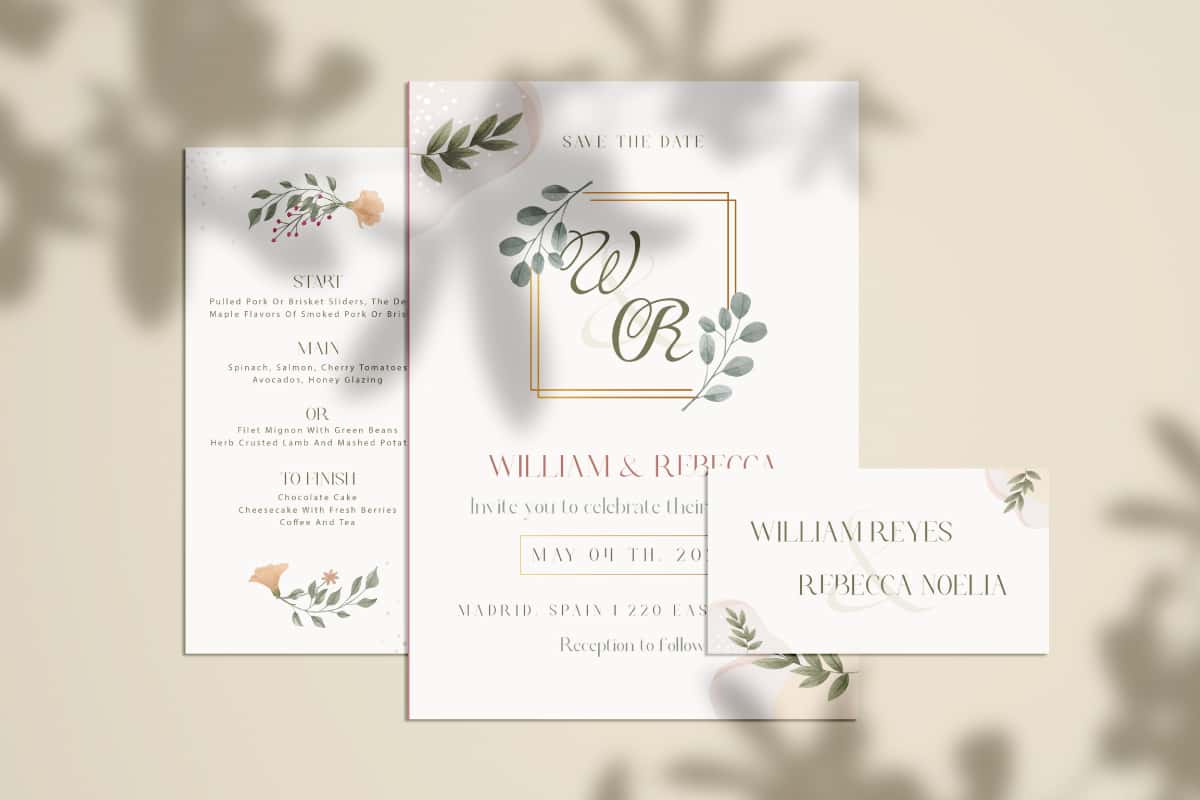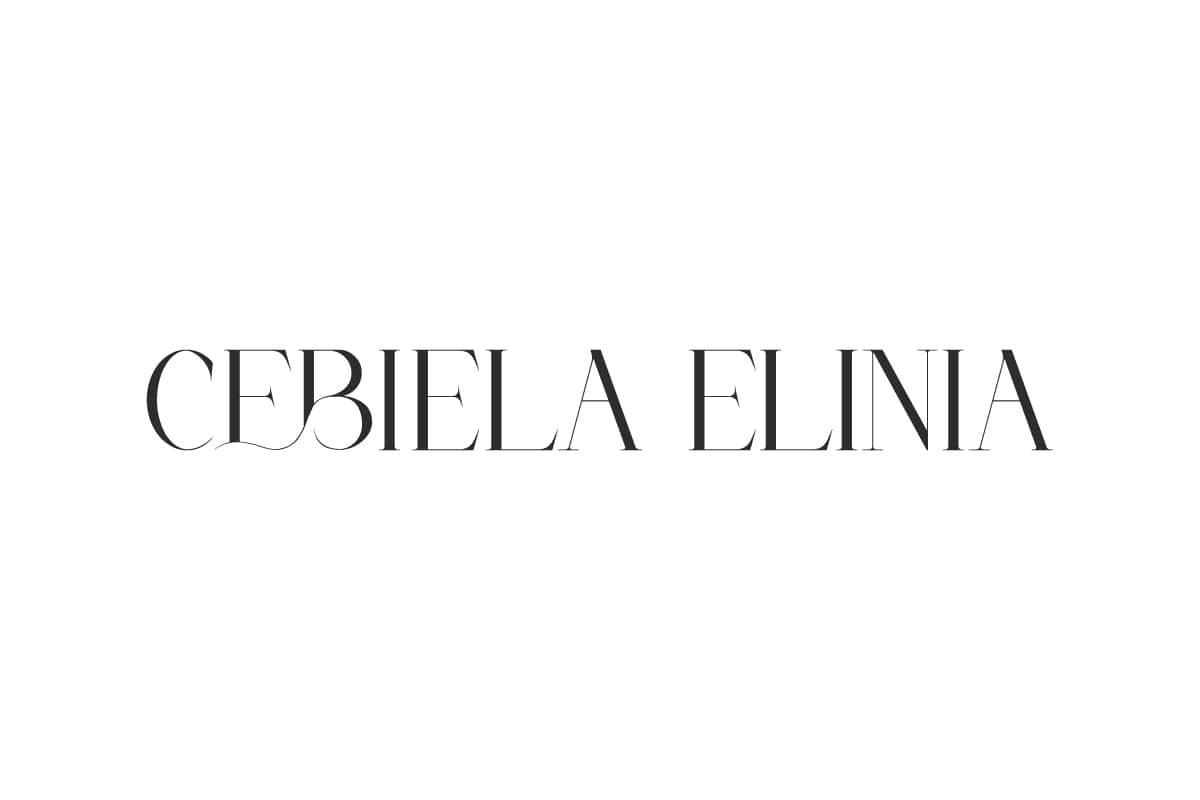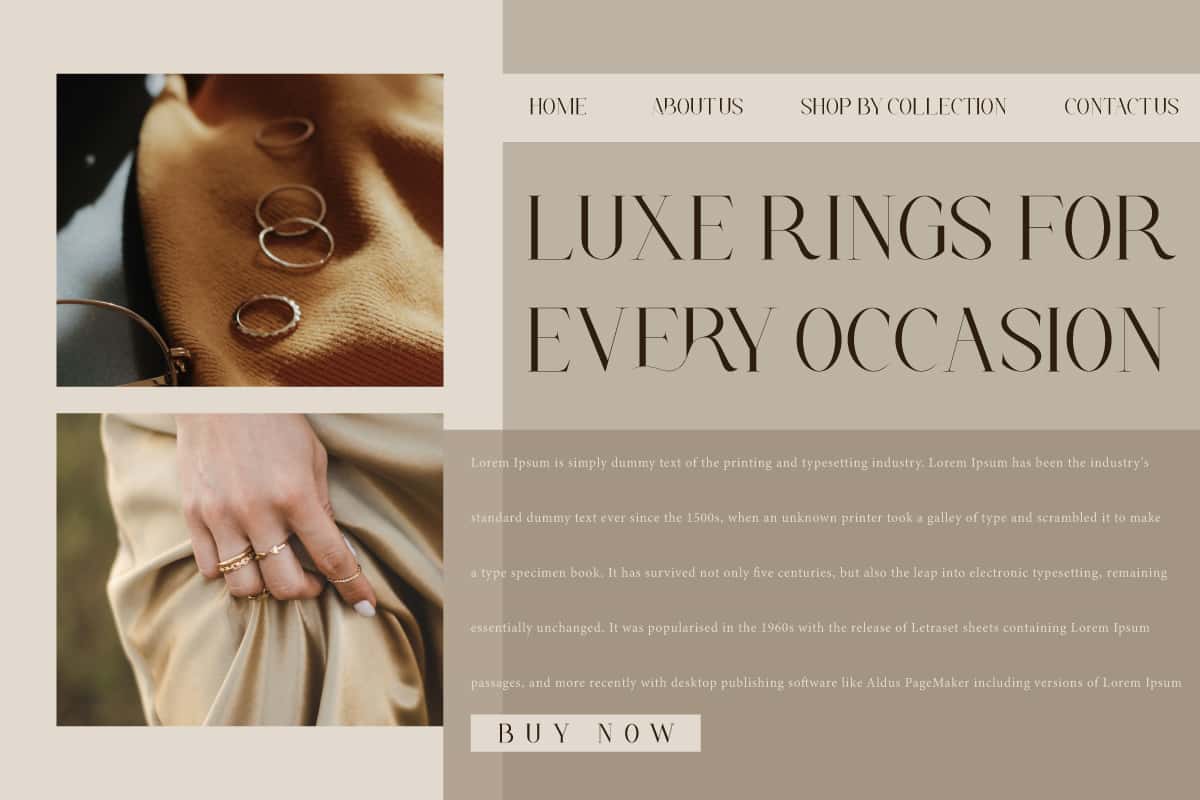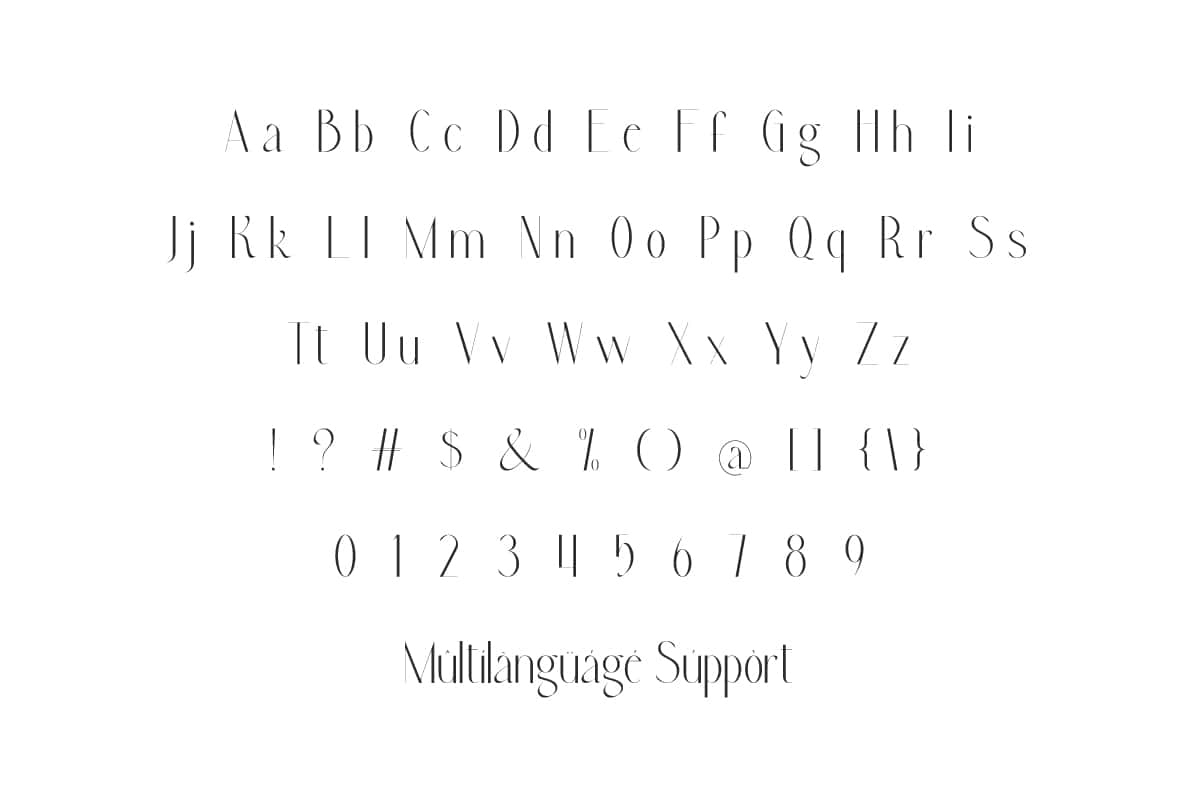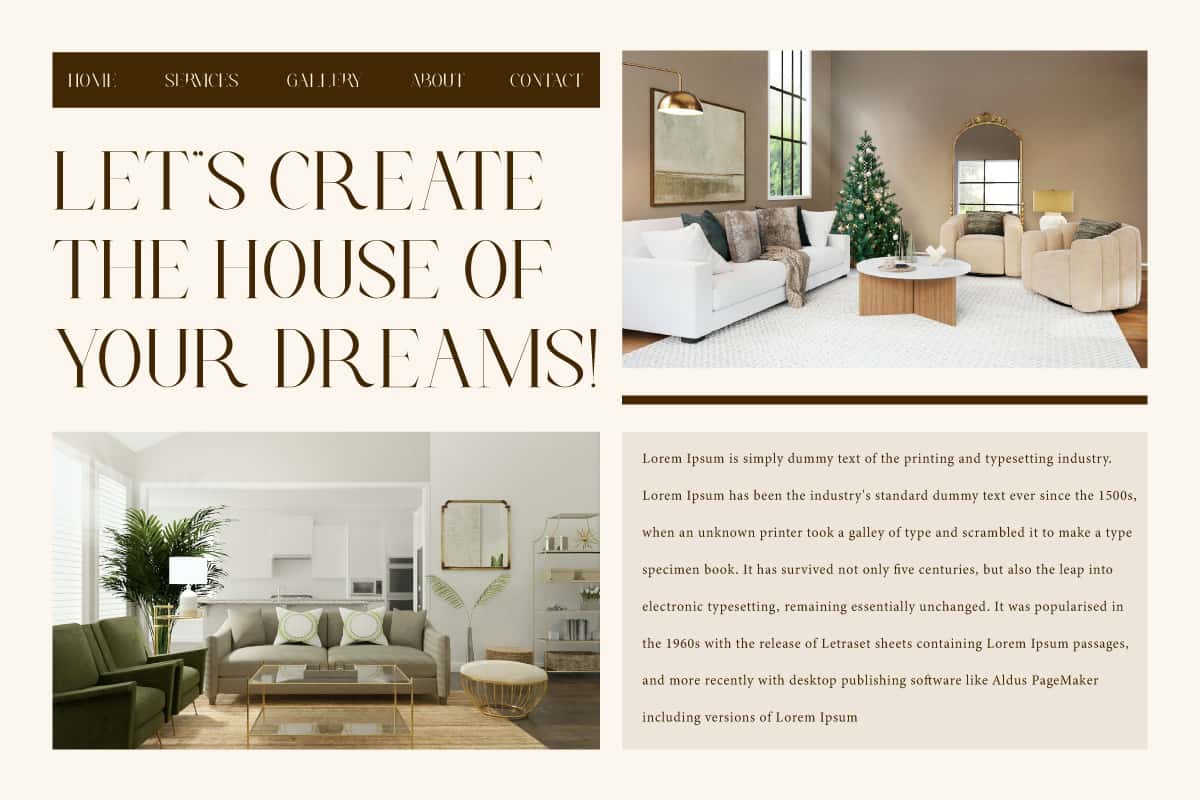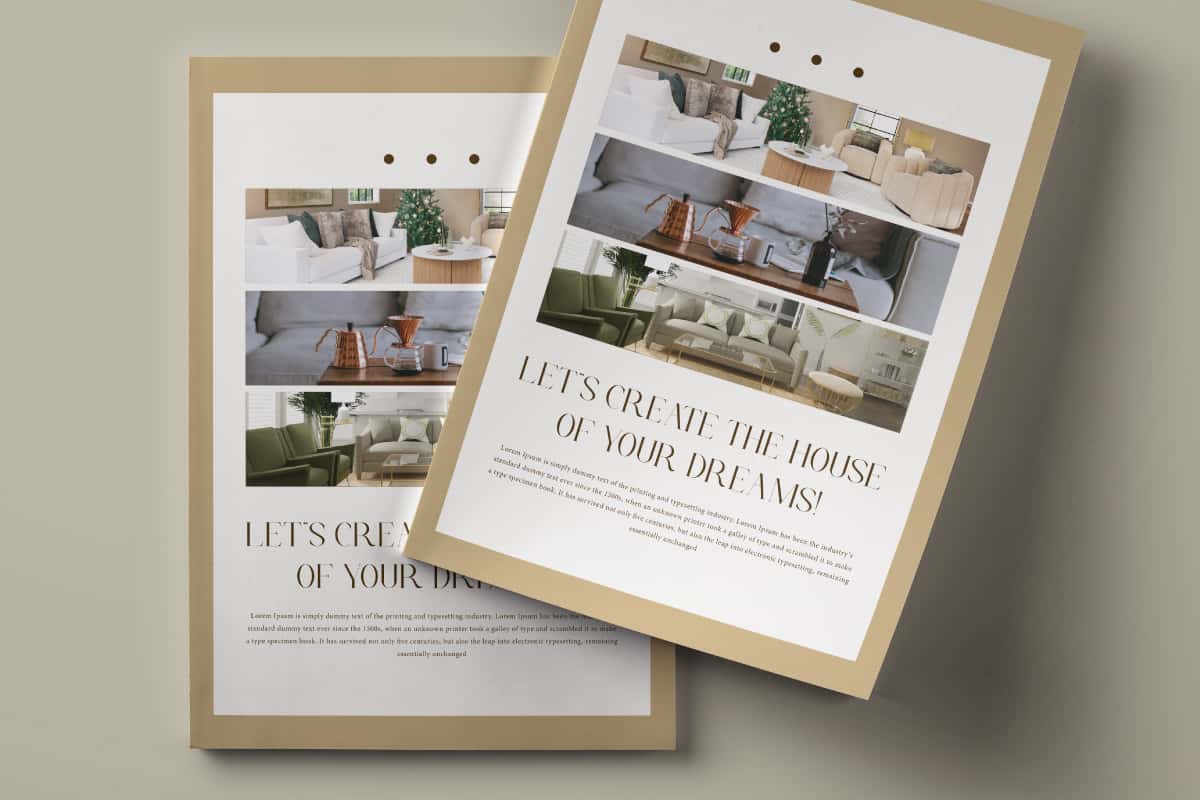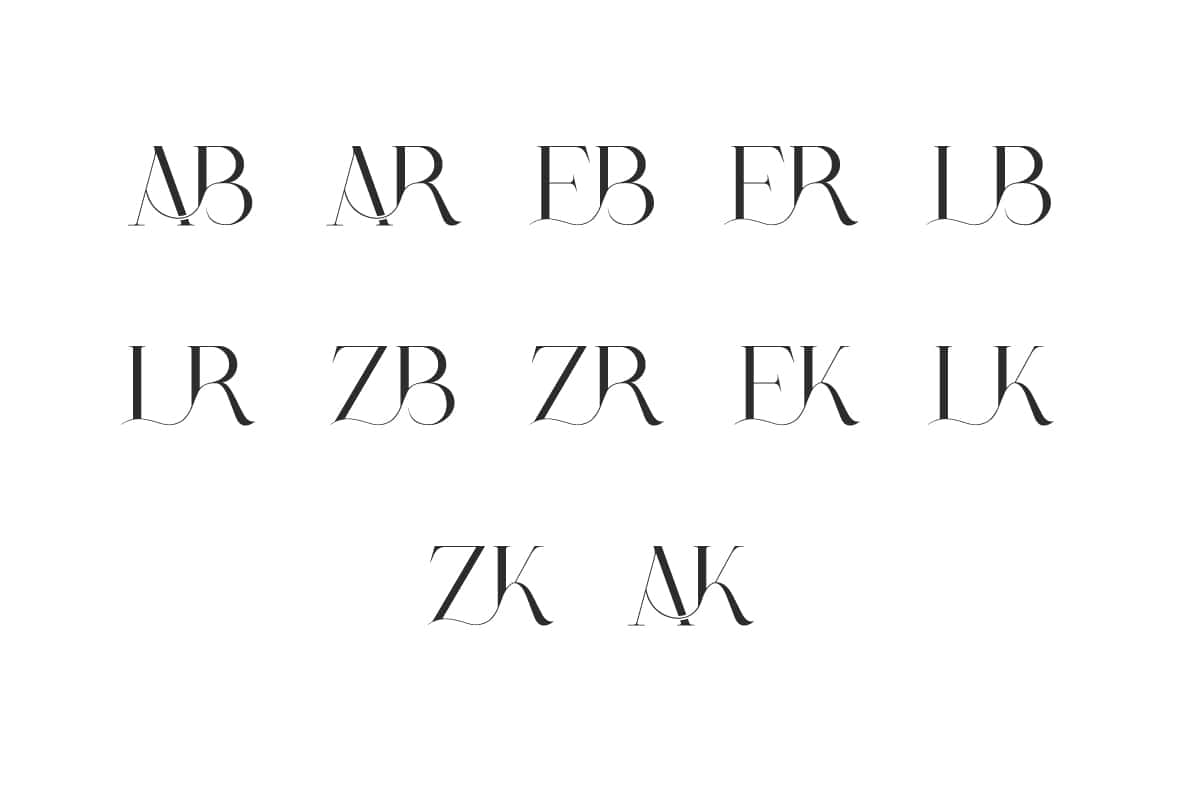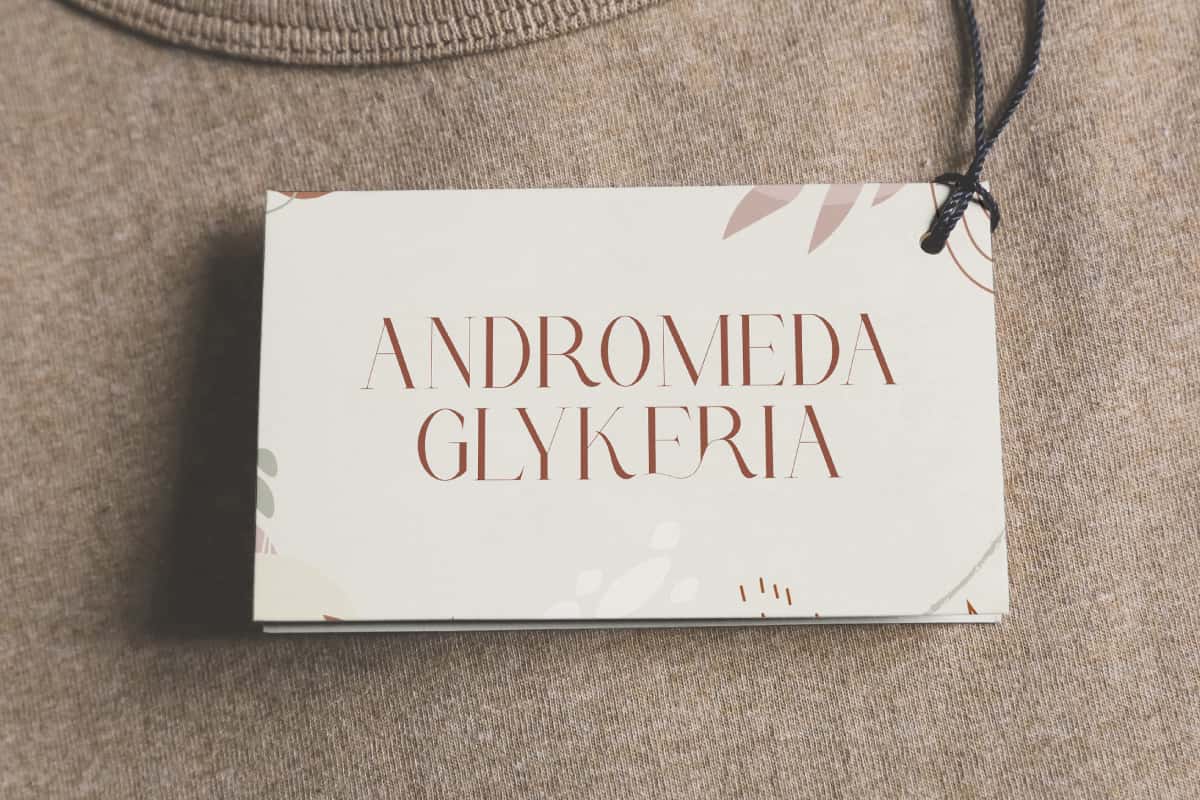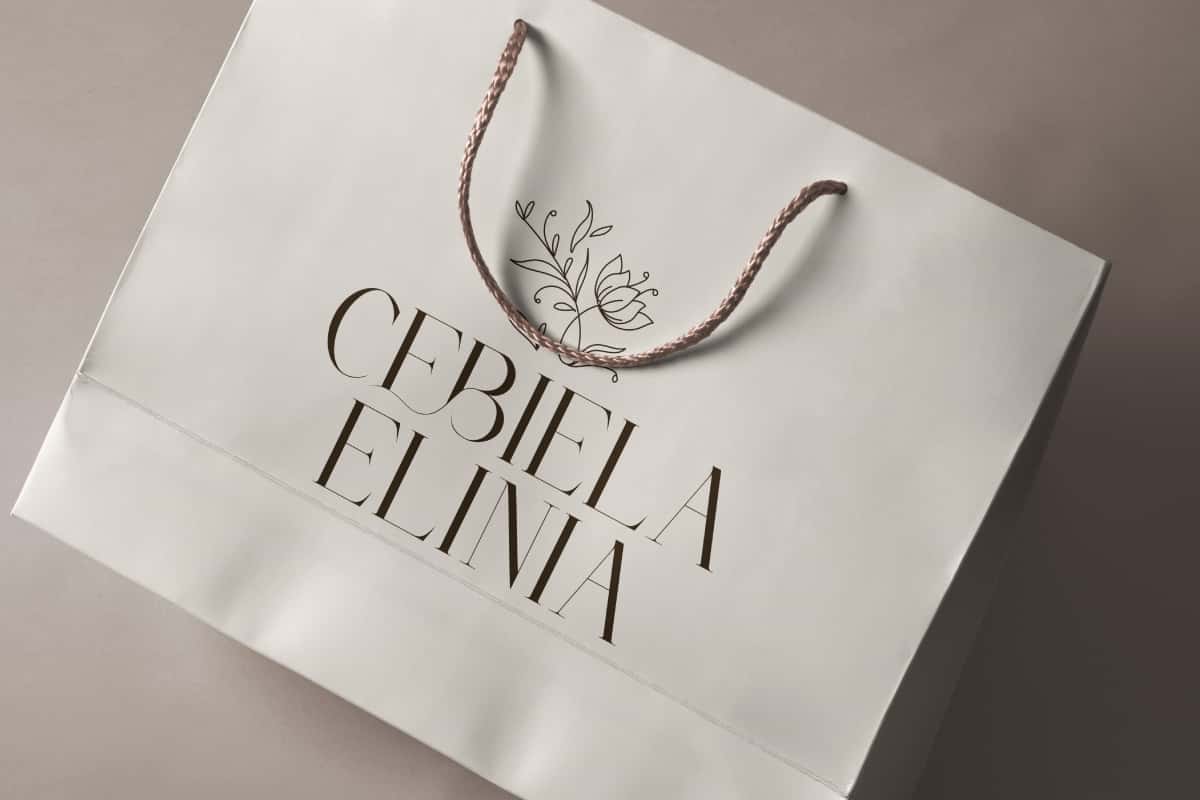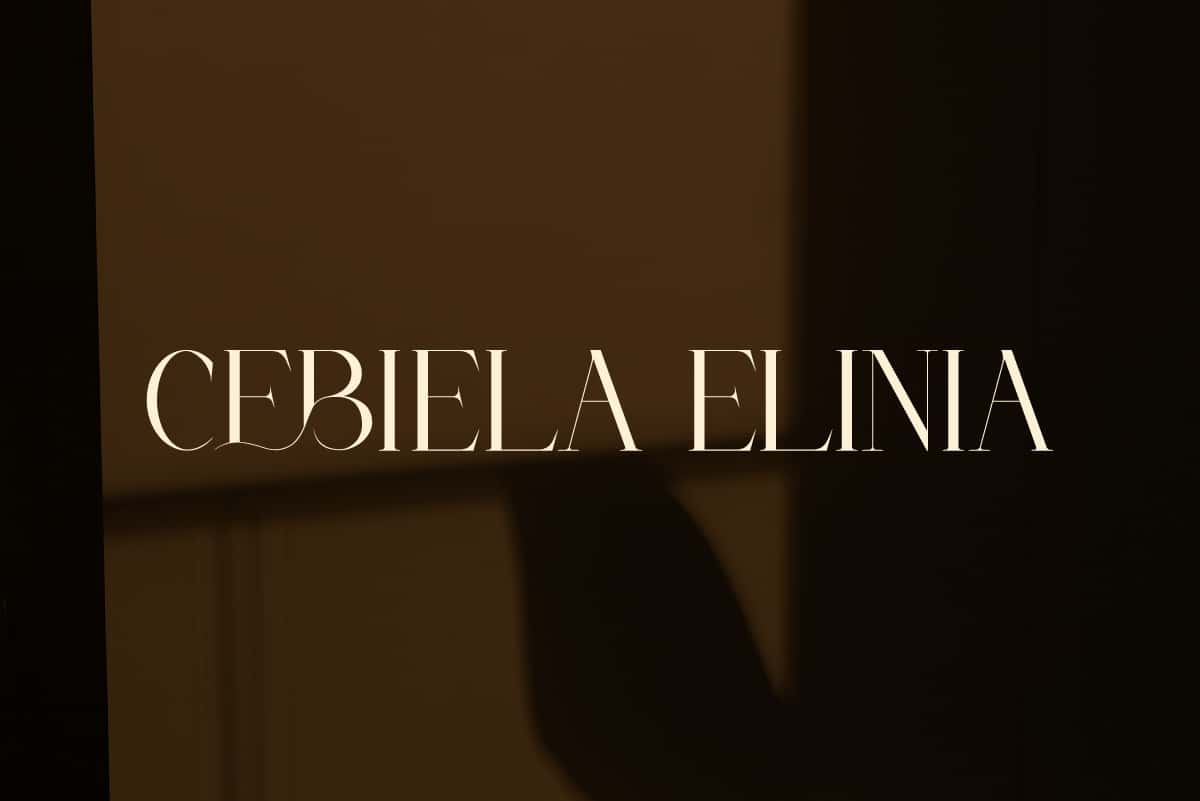
Cebiela Elinia Font is a sophisticated luxurious font that is carefully crafted with attention to detail. Offering a blend of elegance and modernity.
Cebiela Elinia Font is a luxurious and clean serif designed to bring elegance and sophistication to your high-end design projects. Ideal for blogs, brochures, cards design, flyers, headers, invitations, labels, logos, mockup, packaging, paper bags, screen printing, stationery, template, titles, watermarks, websites, etc.
Cebiela Elinia Font includes full set of Uppercase and Lowercase Basic Characters, Numbers, Punctuation, Symbols and Ligature. Inspired by the timeless beauty of classical art, combining modern aesthetics with a touch of vintage luxury. Perfect for accessories and jewelry, boutique, fashion, graphic design, home furniture, real estate, wedding, etc.